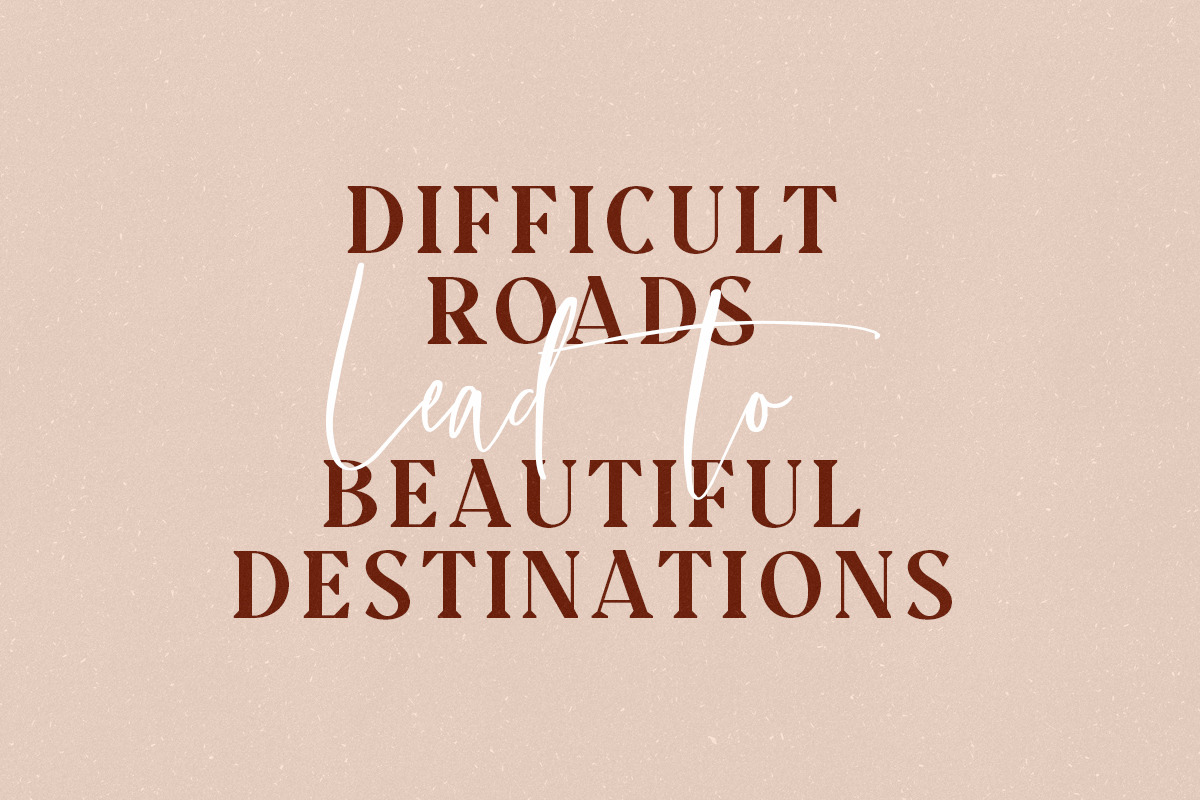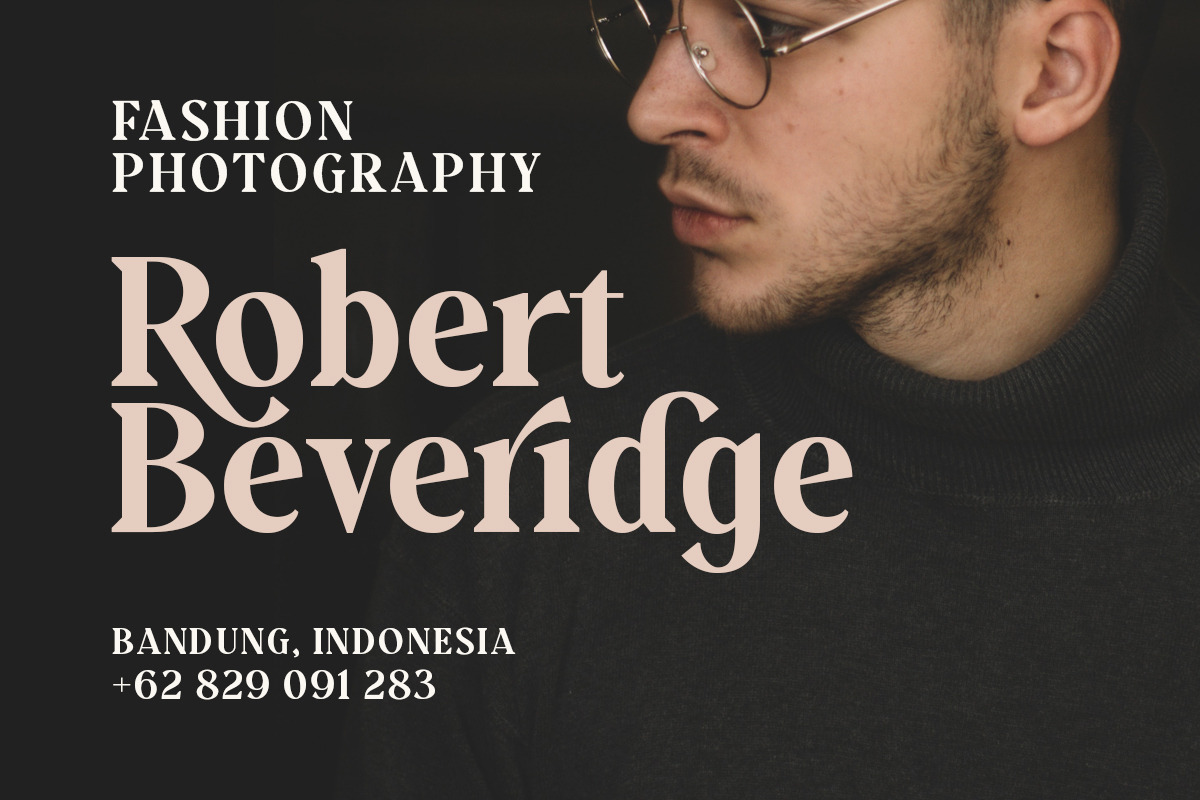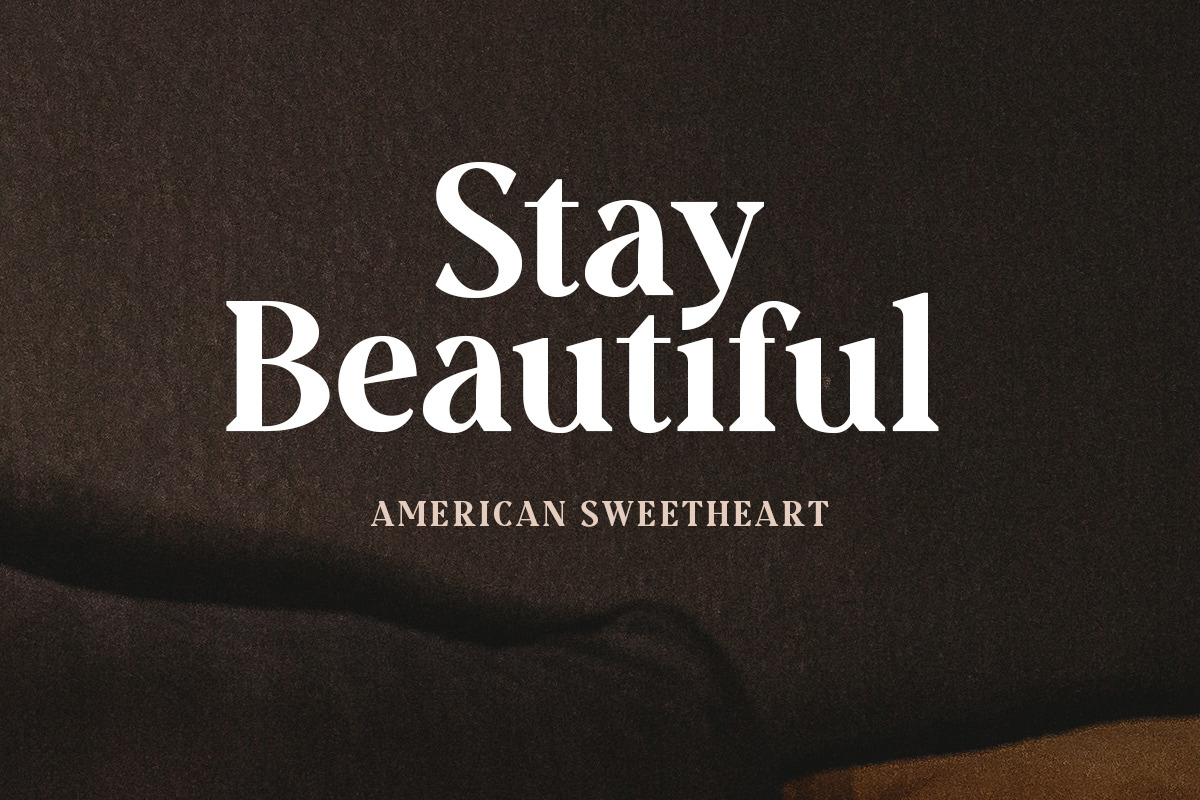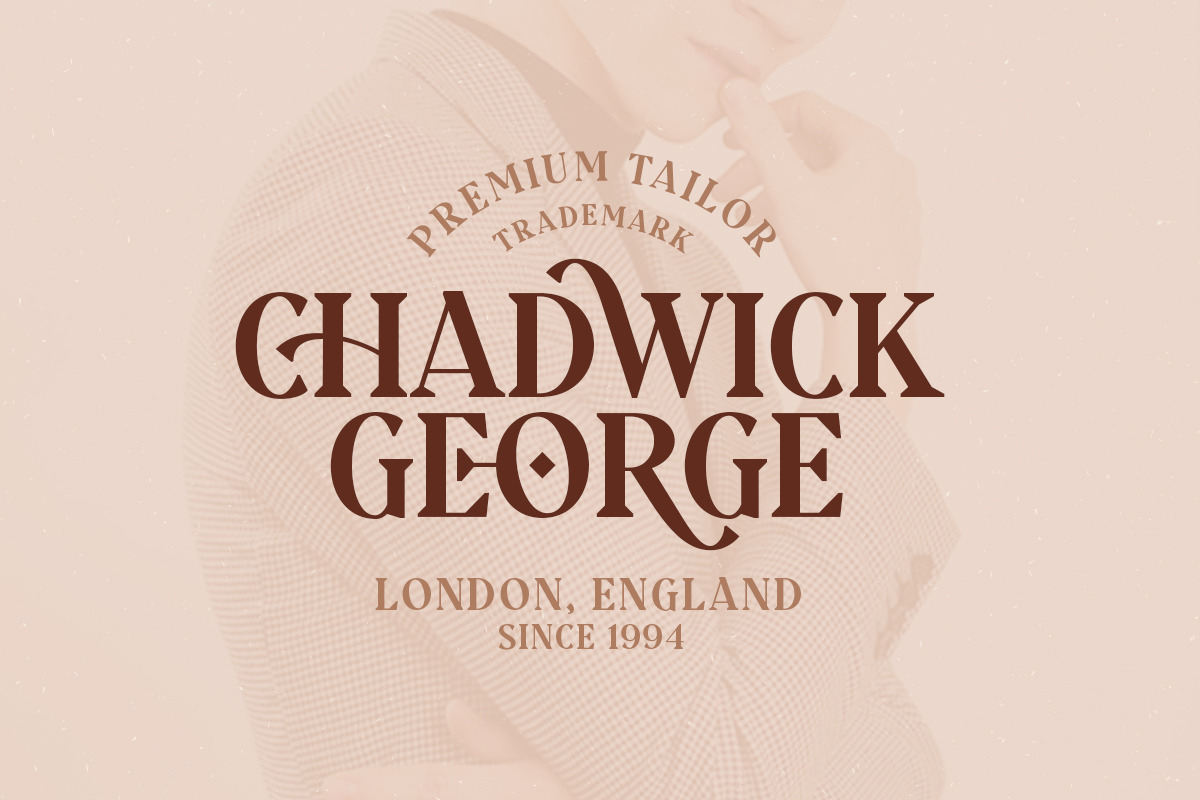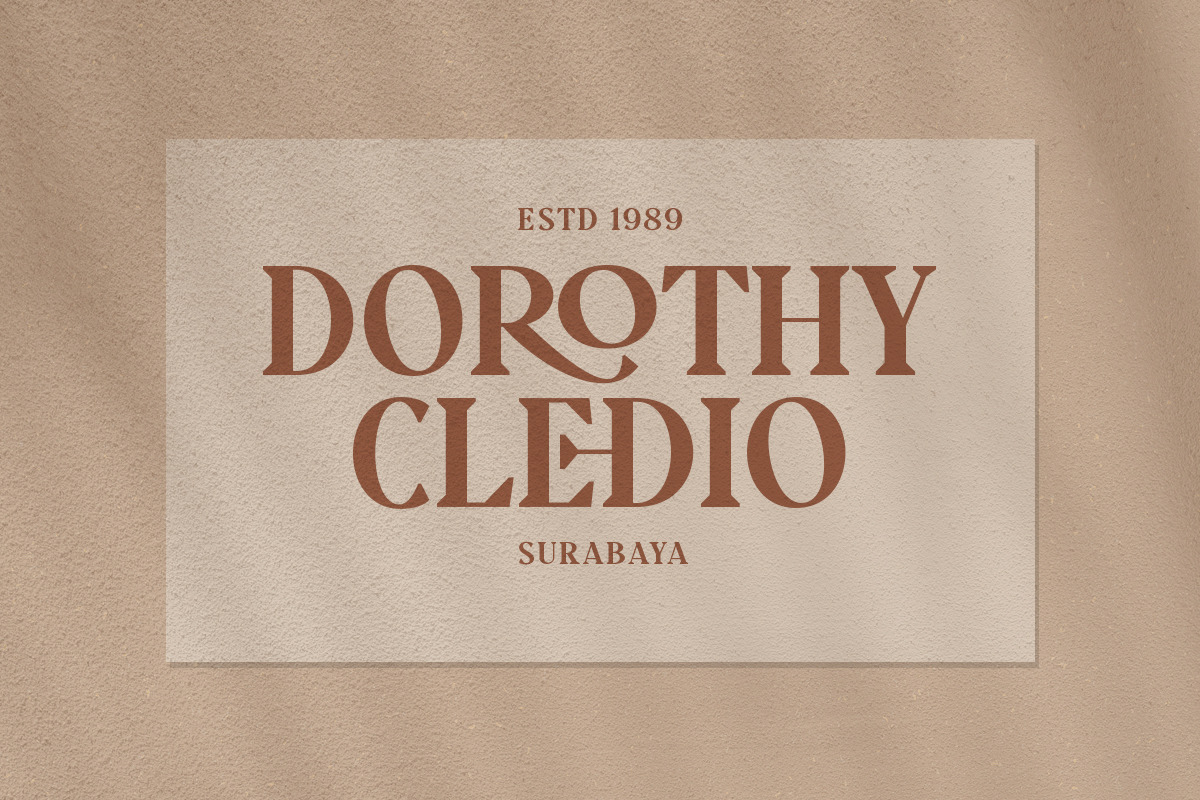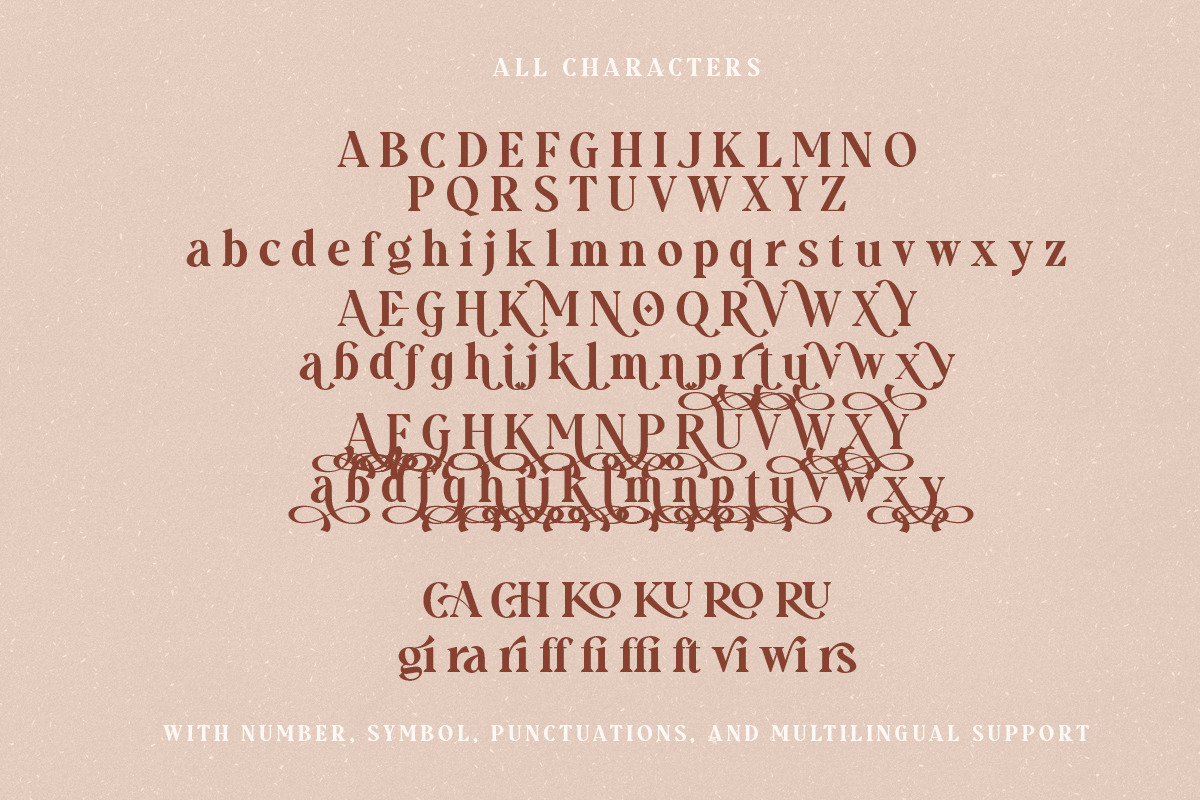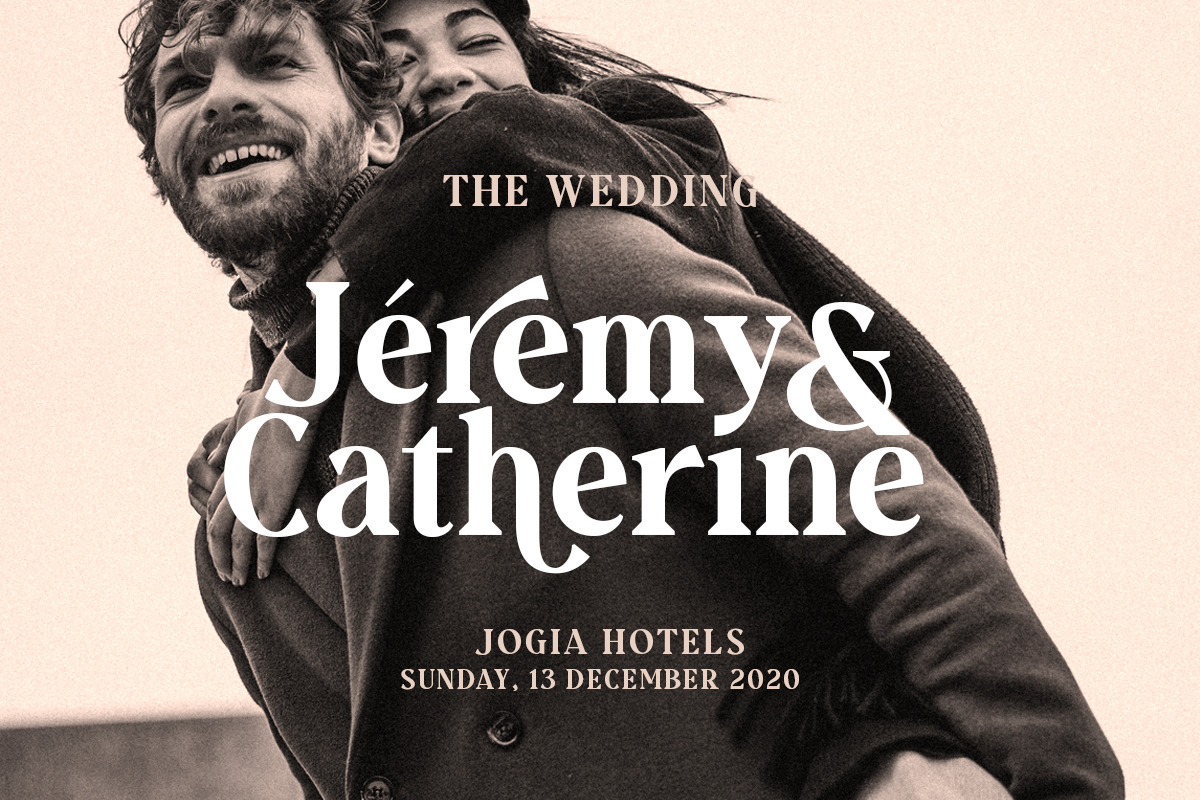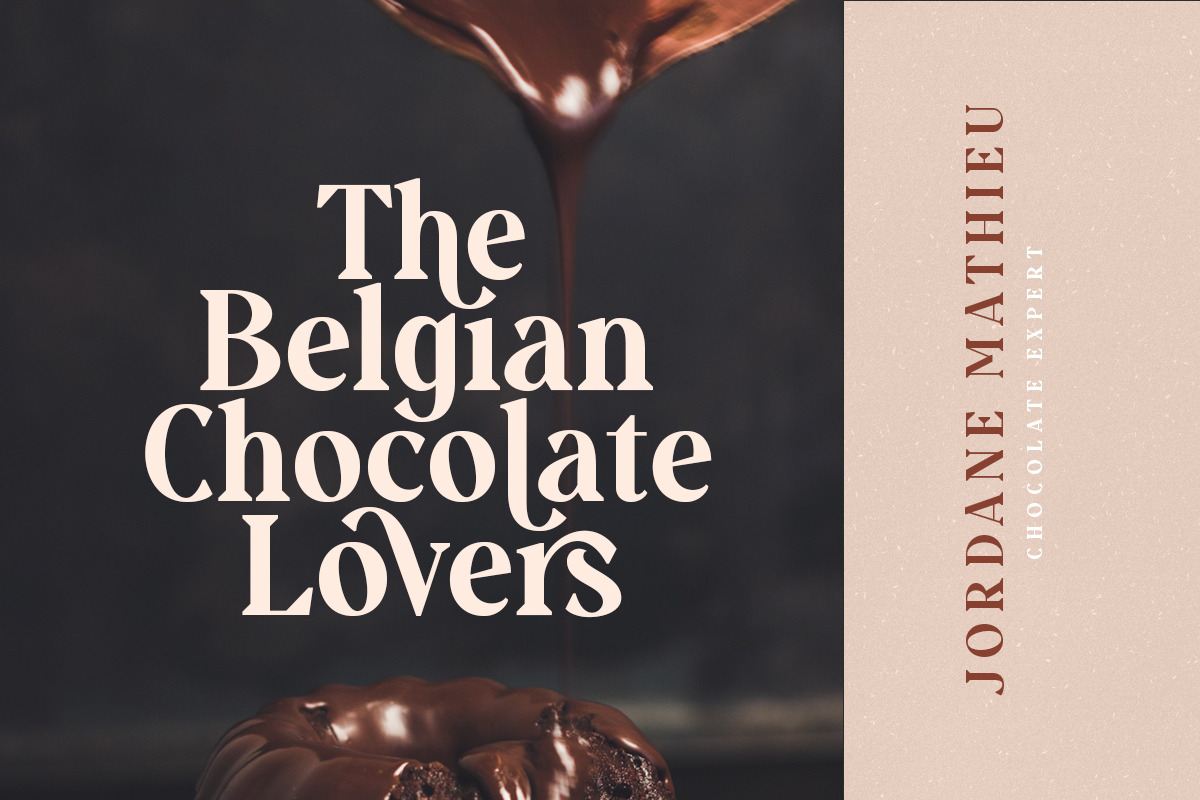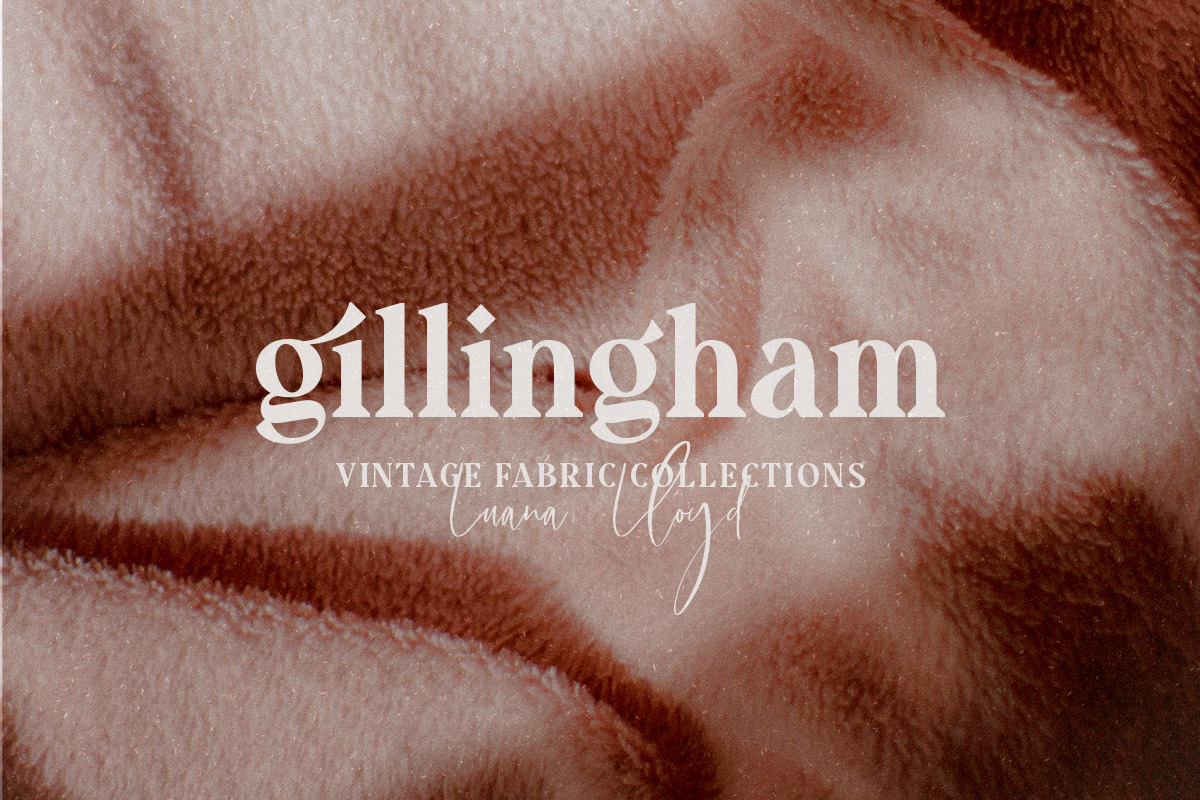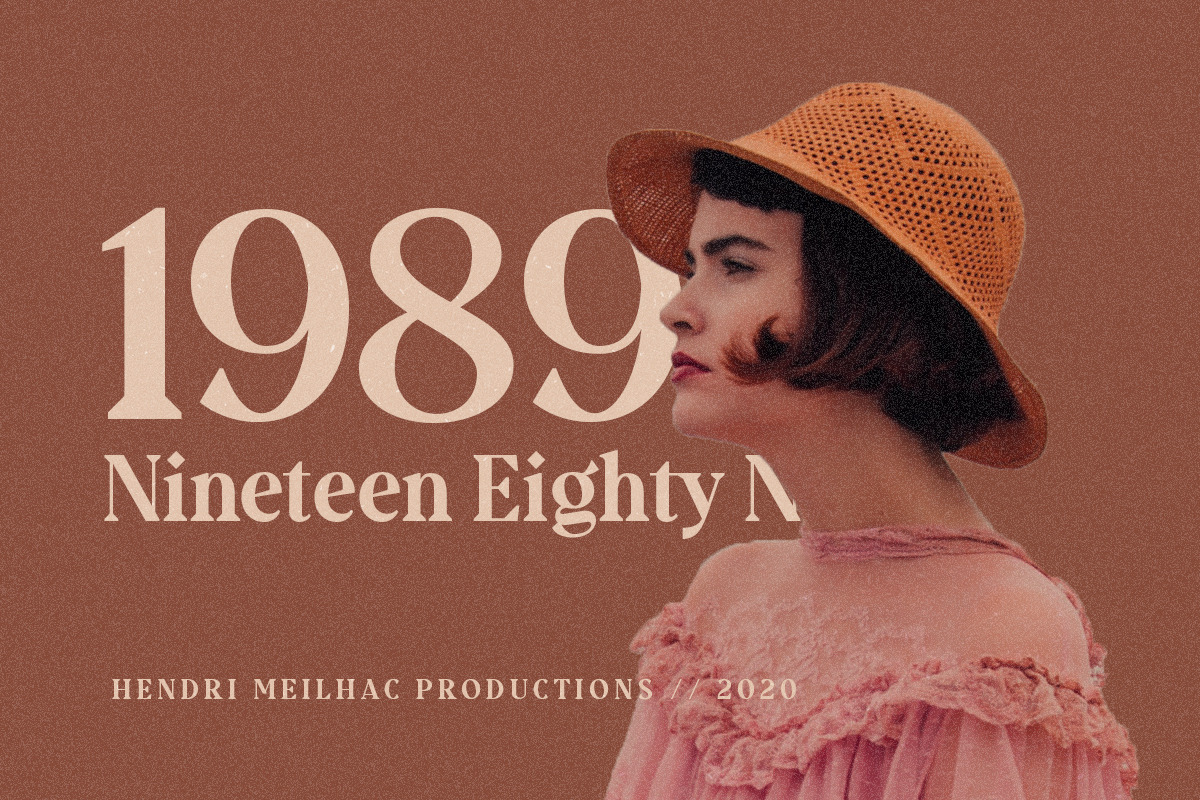
Gravity Wanders - Stylish Bold Serif
Introducing, A NEW STYLISH SERIF, Gravity Wanders - a modern bold serif with a bunch of ligatures and alternates!
Gravity Wanders is a stylish and elegant serif with a bunch of ligatures and alternates that will make your presentation or logo even more stunning and stand out! Gravity Wanders also support Multi Language. and already PUA Encoded!
- Multi language
- Alternates for each characters